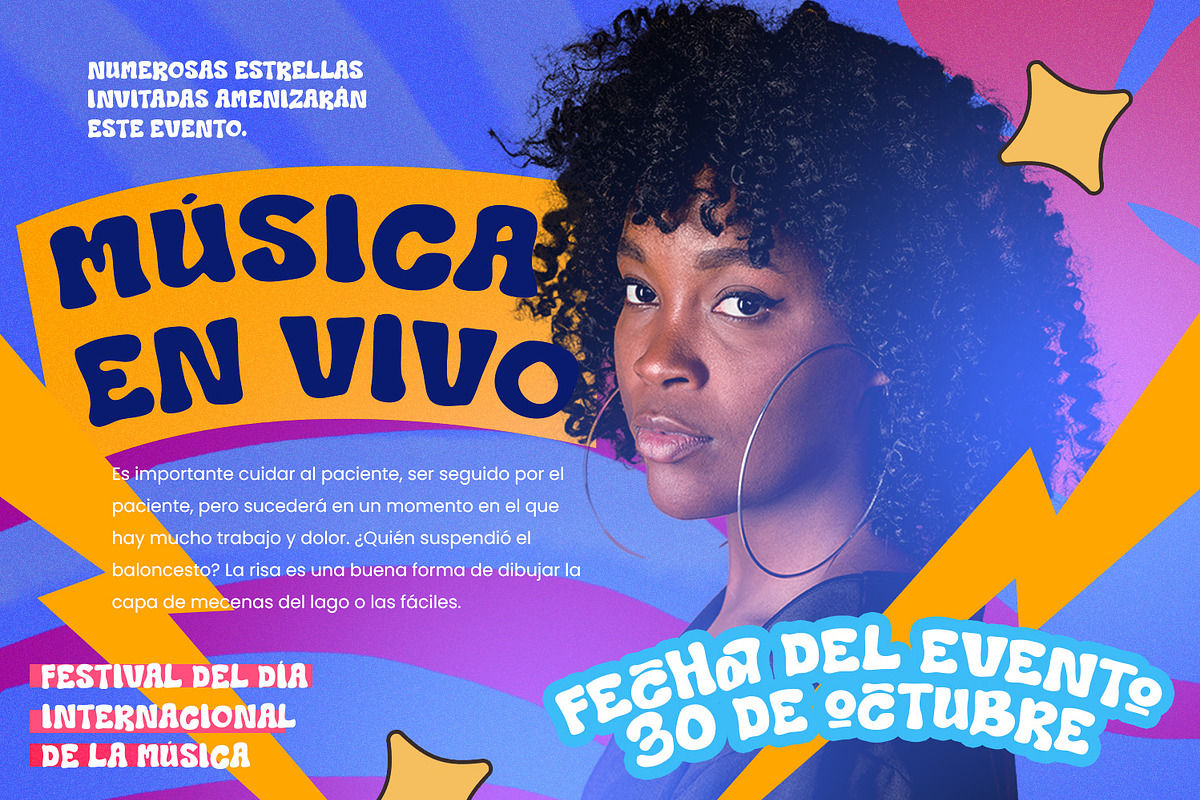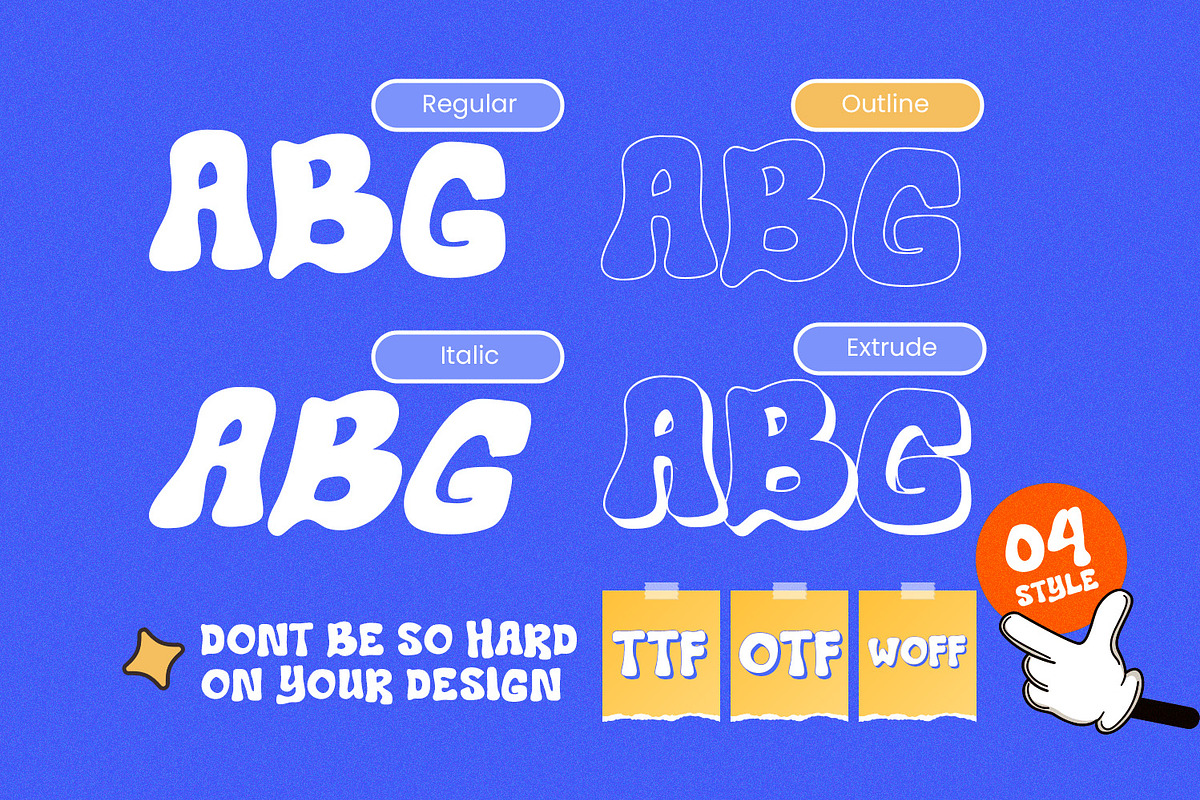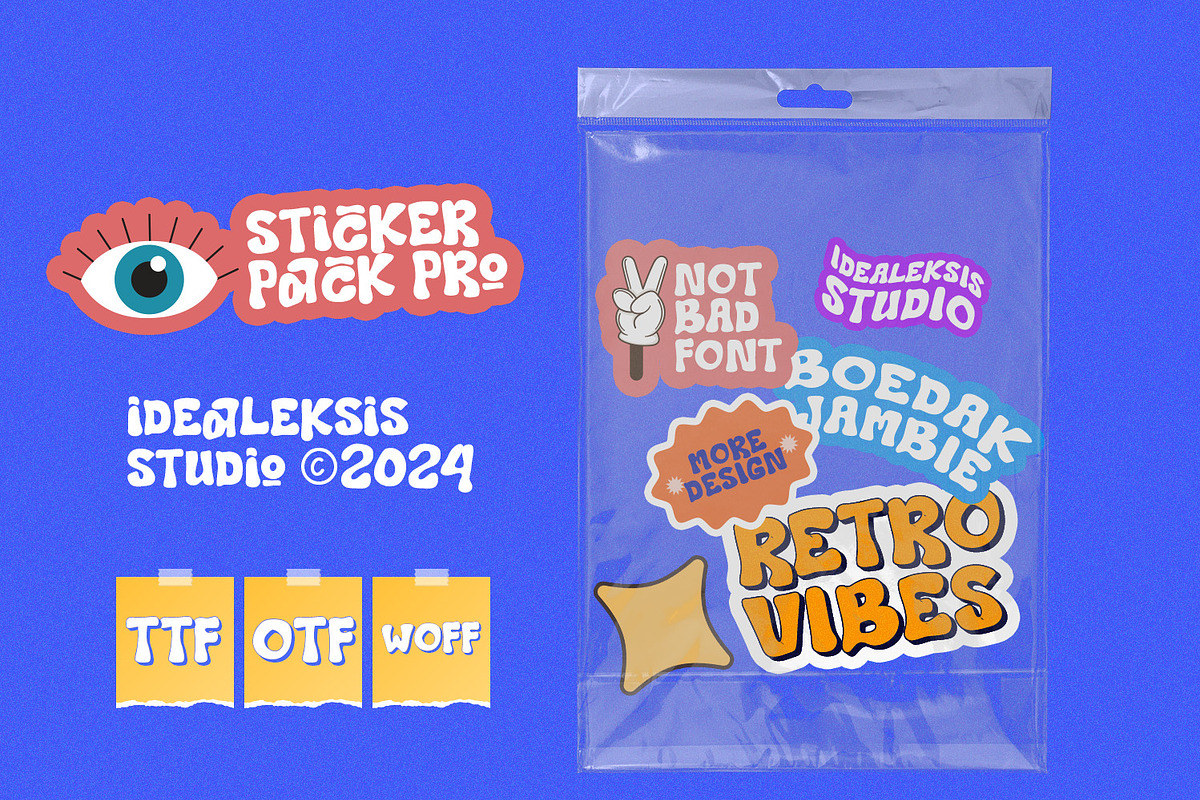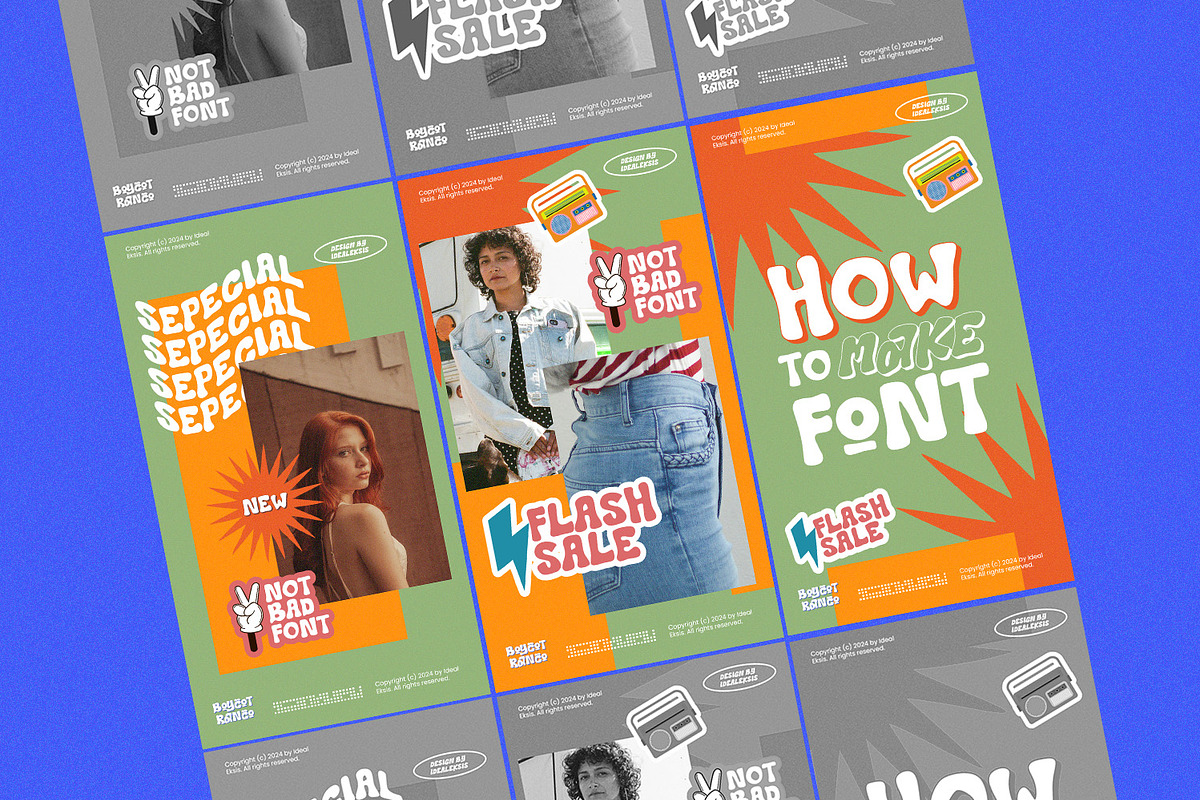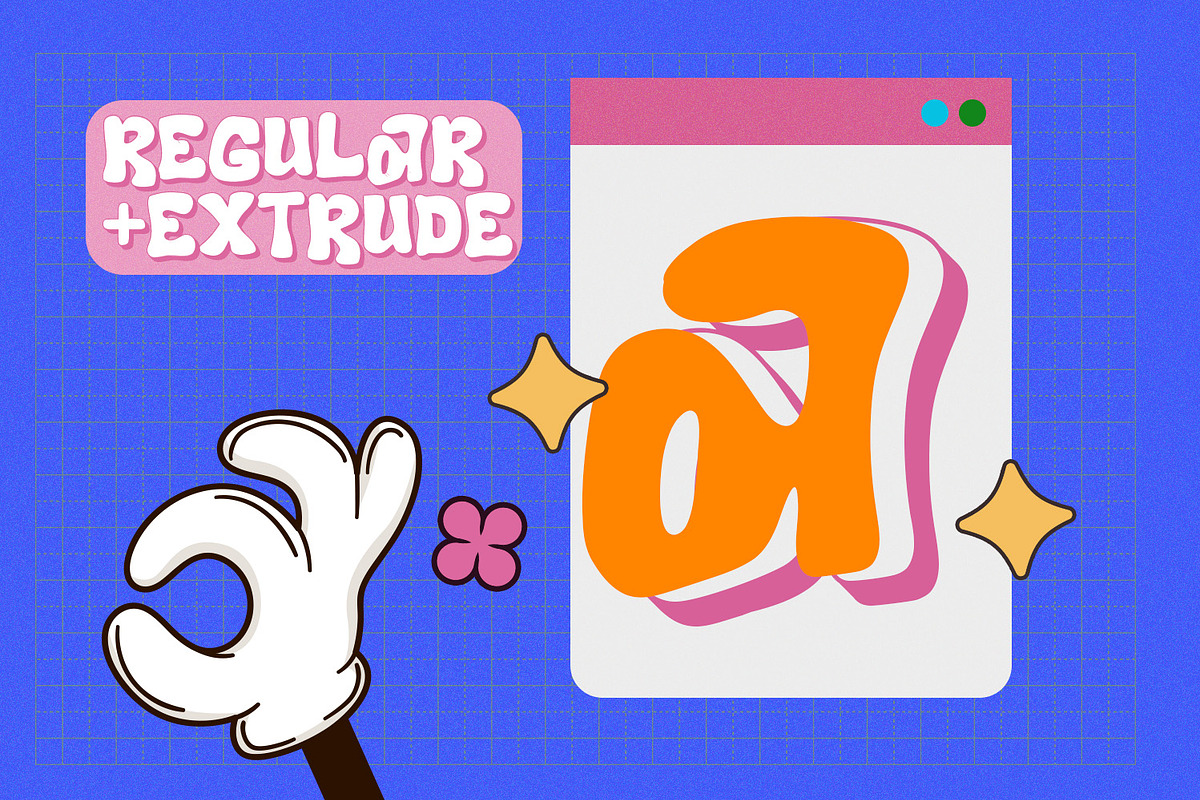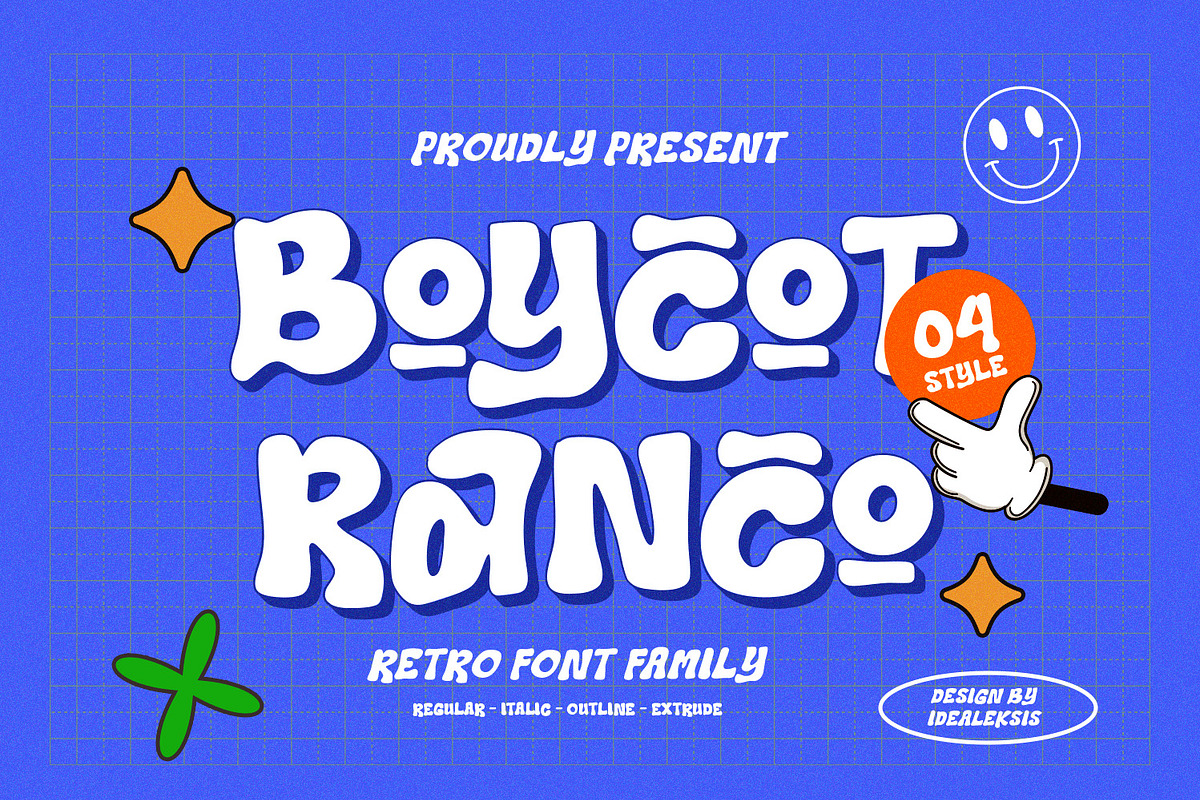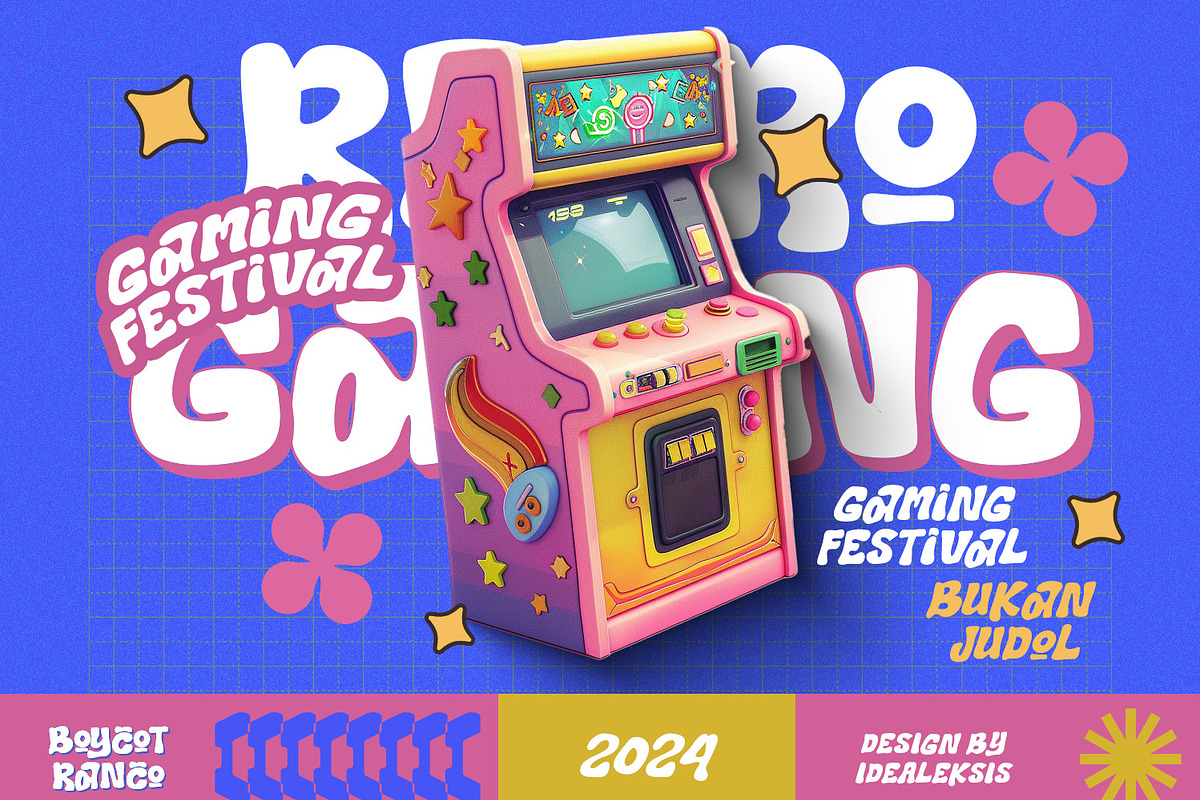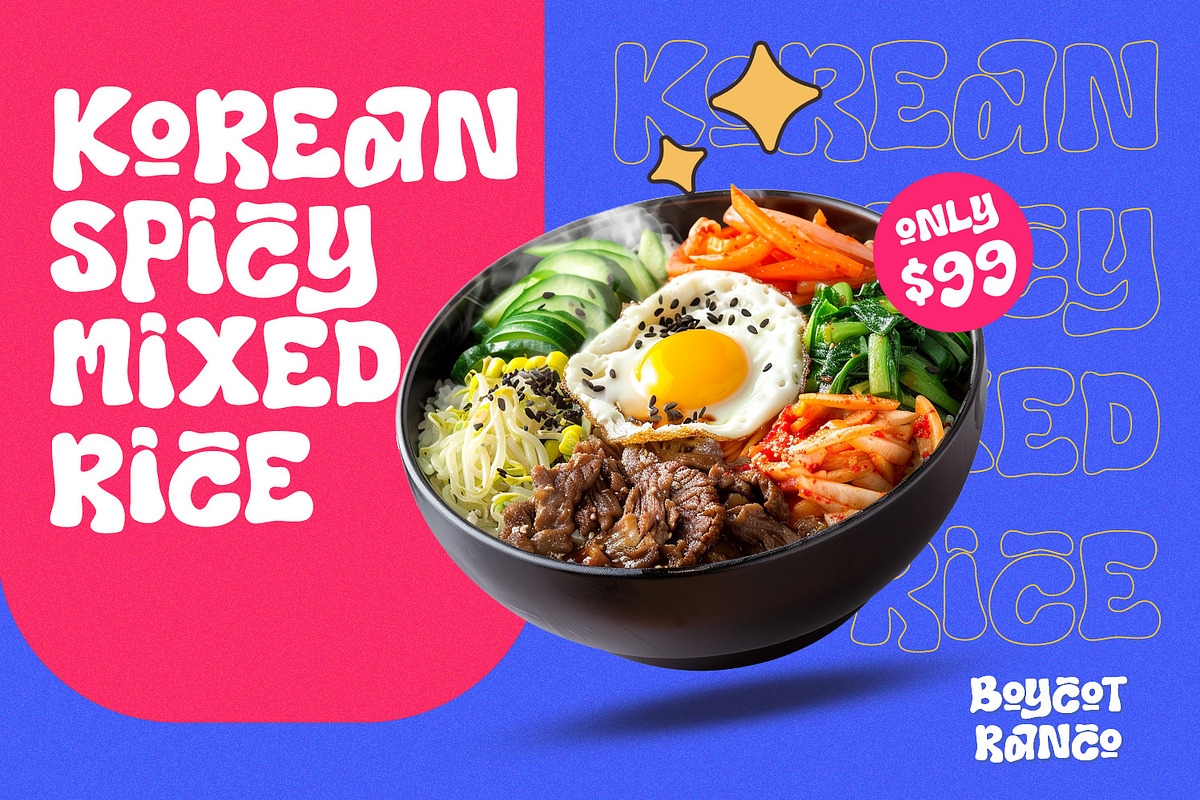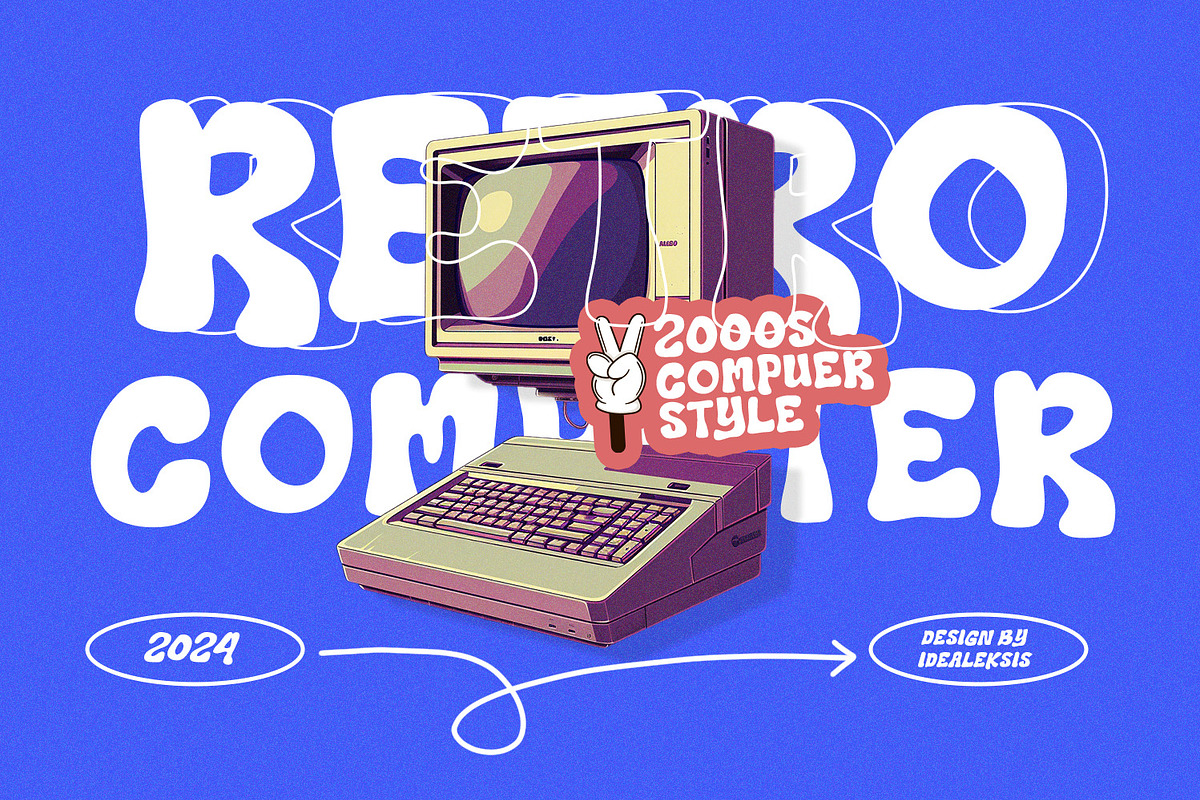
Boycot Ranco
Boycot Ranco is a vibrant retro groovy font that captures the essence of the 70s with a modern twist. Its playful curves and bold, funky letters bring a sense of nostalgia and joy, making it perfect for designs that want to evoke a carefree, vintage vibe. Whether you’re creating posters, logos, or social media graphics, Boycot Ranco adds a fun and dynamic flair to any project. With its unique blend of retro aesthetics and contemporary design, this font is a must-have for anyone looking to make a bold statement.